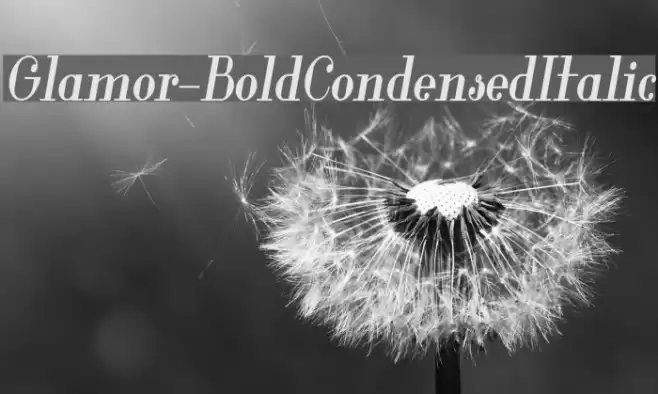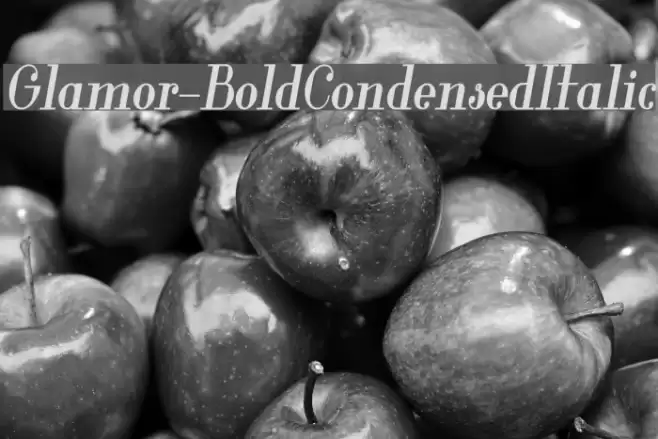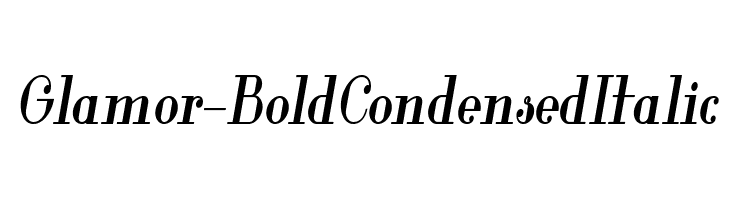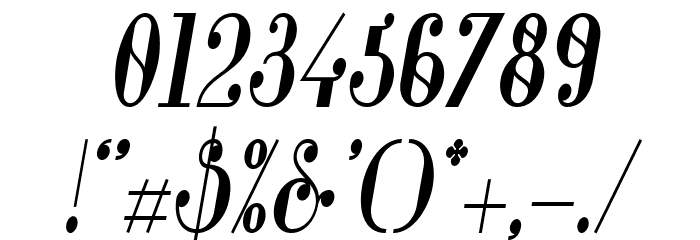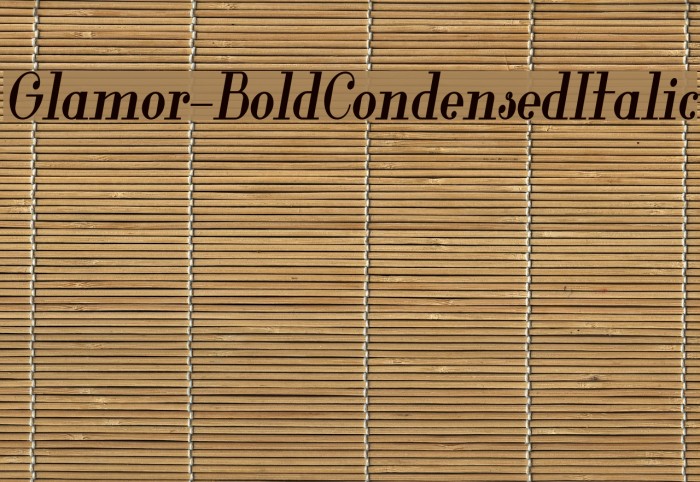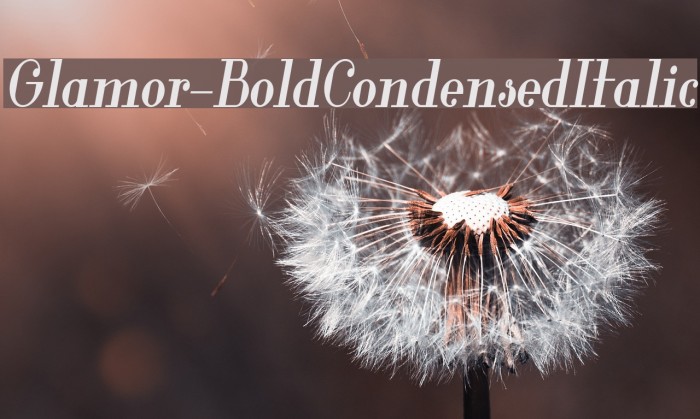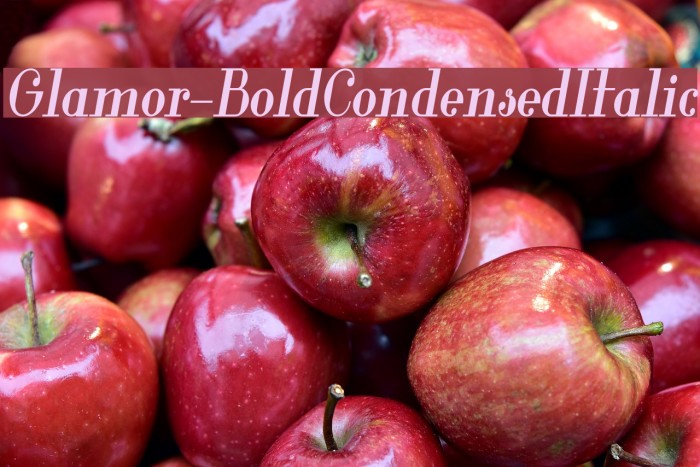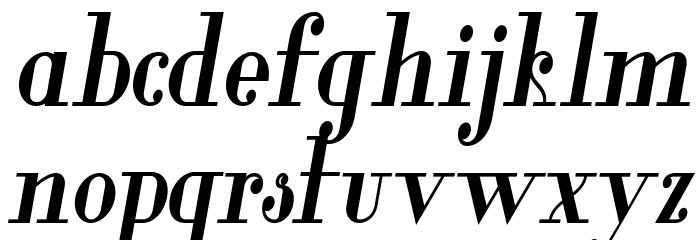
Glamor-BoldCondensedItalic Font
Glamor-BoldCondensedItalic Description
This font features a bold and condensed style with an elegant italic slant, giving it a sophisticated and modern appearance. The uppercase letters are tall and narrow, with a slight curvature that adds a touch of flair. The lowercase letters maintain a consistent style, with some unique characteristics such as the distinctive tail on the 'g' and the looped 'q'. The numerals are well-proportioned and align seamlessly with the overall design. Special characters are crafted with the same attention to detail, ensuring a cohesive look across all glyphs. This font is ideal for projects that require a blend of modernity and elegance.
A bold, condensed, and italic font with a modern and elegant style from Uncategorized fonts.
- Proposed Projects: Ideal for fashion magazines, luxury branding, high-end product packaging, and elegant invitations.
- Overall Style: Modern, Elegant
- Use Case: Headlines, Logos, Branding